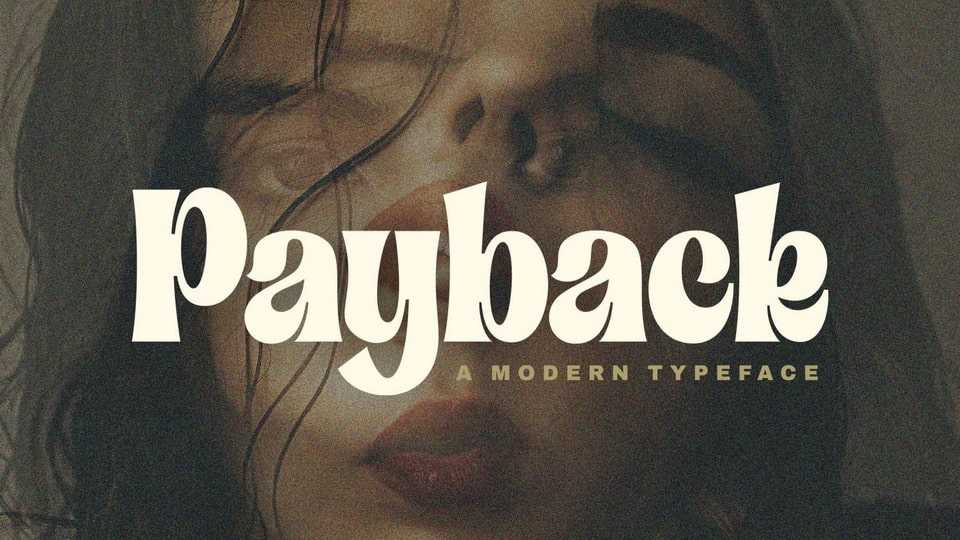
Download Payback font, a modern serif typeface that has own unique style and casual look. Payback font is perfect for an elegant and luxury logo, branding, fashion brand, magazine, clothes, lettering, quotes, and so much more.